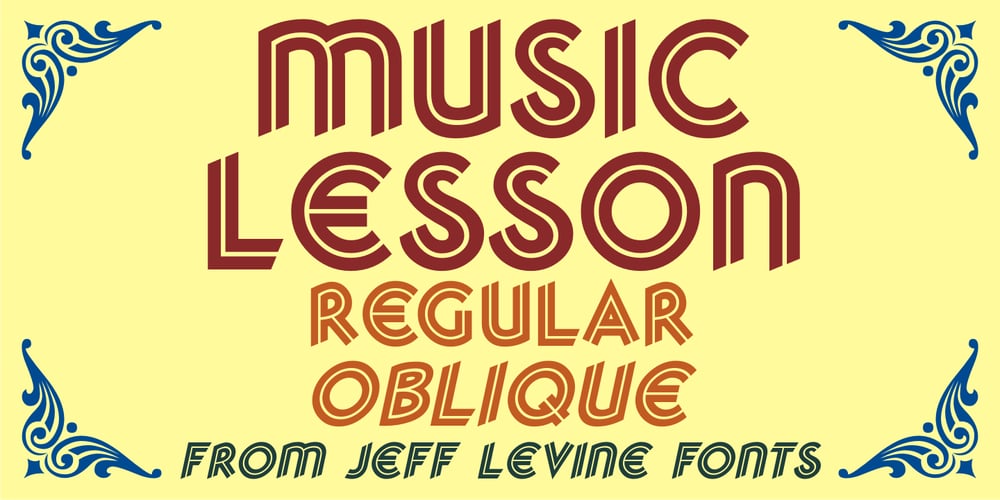
Music Lesson JNL Font Family was designed by Jeff Levine and published by Jeff Levine. Music Lesson JNL contains 2 styles and family package options. During the 1940s and 1950s, the Miller Music Corporation issued a number of its songs with a stock cover design for their “Miller Series of Piano Solos” but the song titles were hand lettered in an Art Deco dual line design. Recreated digitally as Music Lesson JNL, this type design is available in both regular and oblique versions.